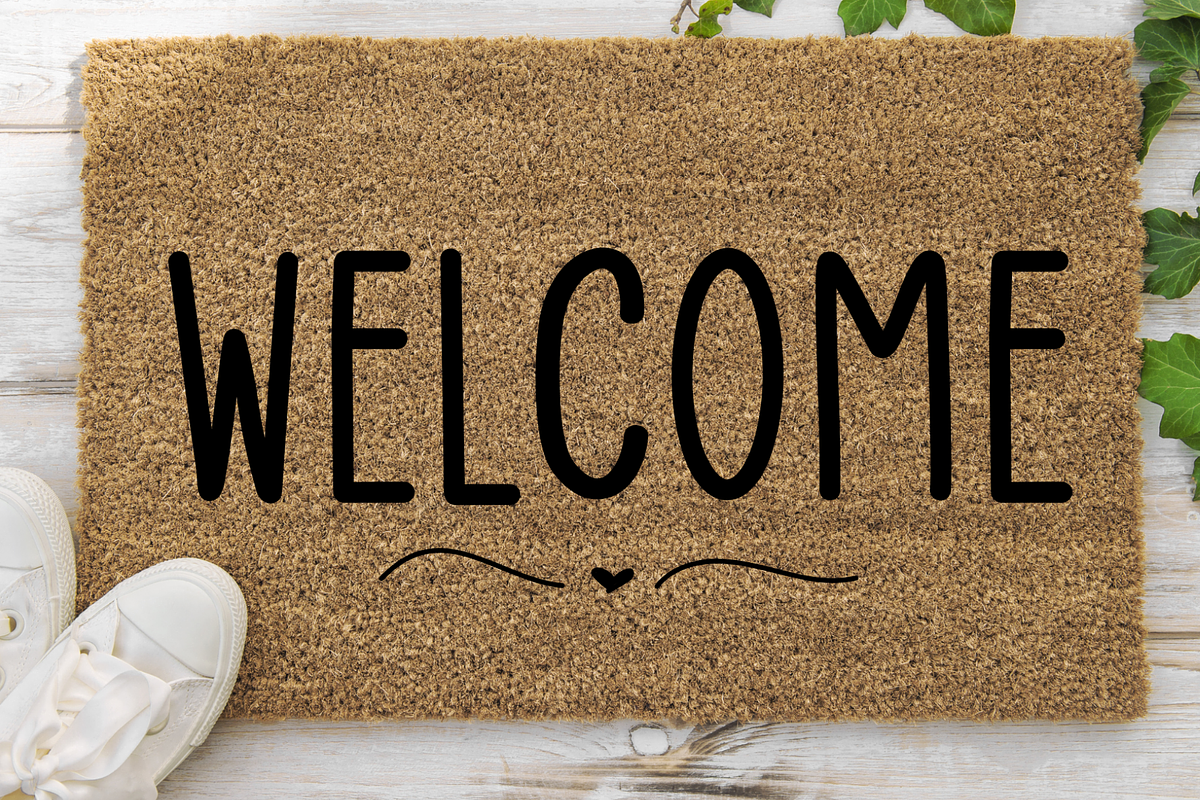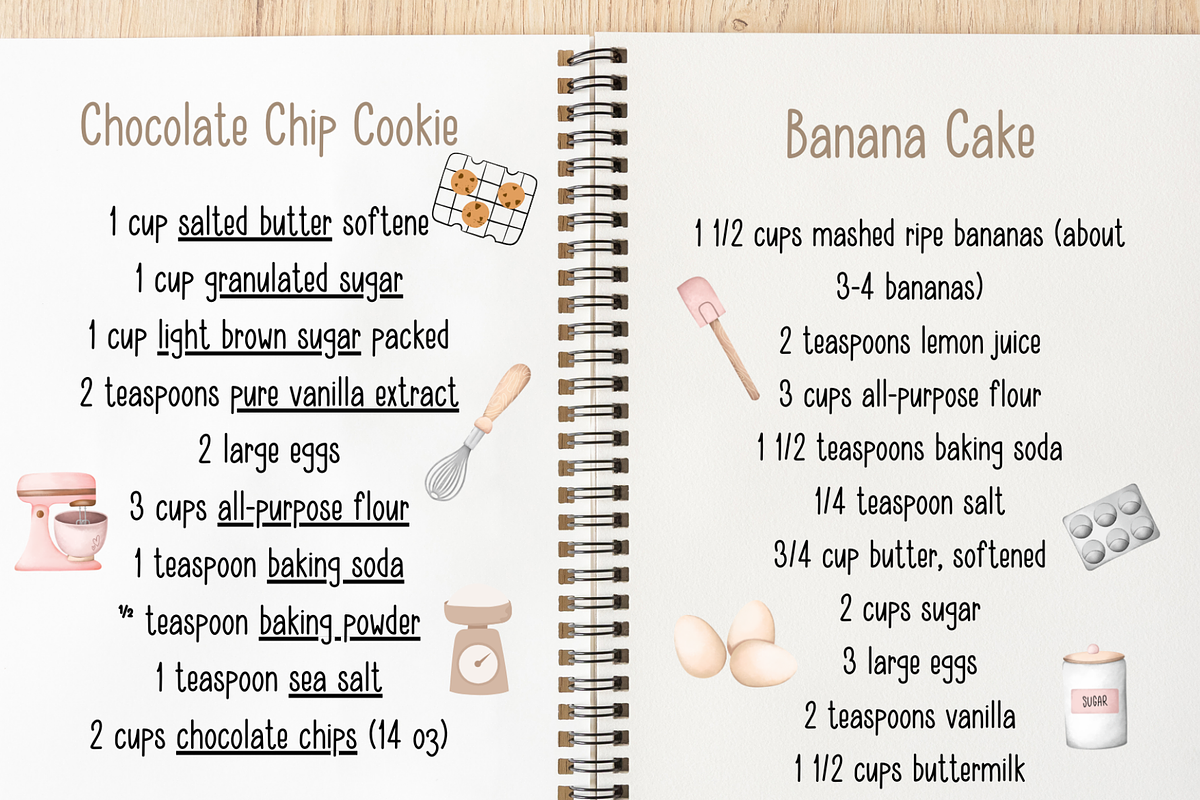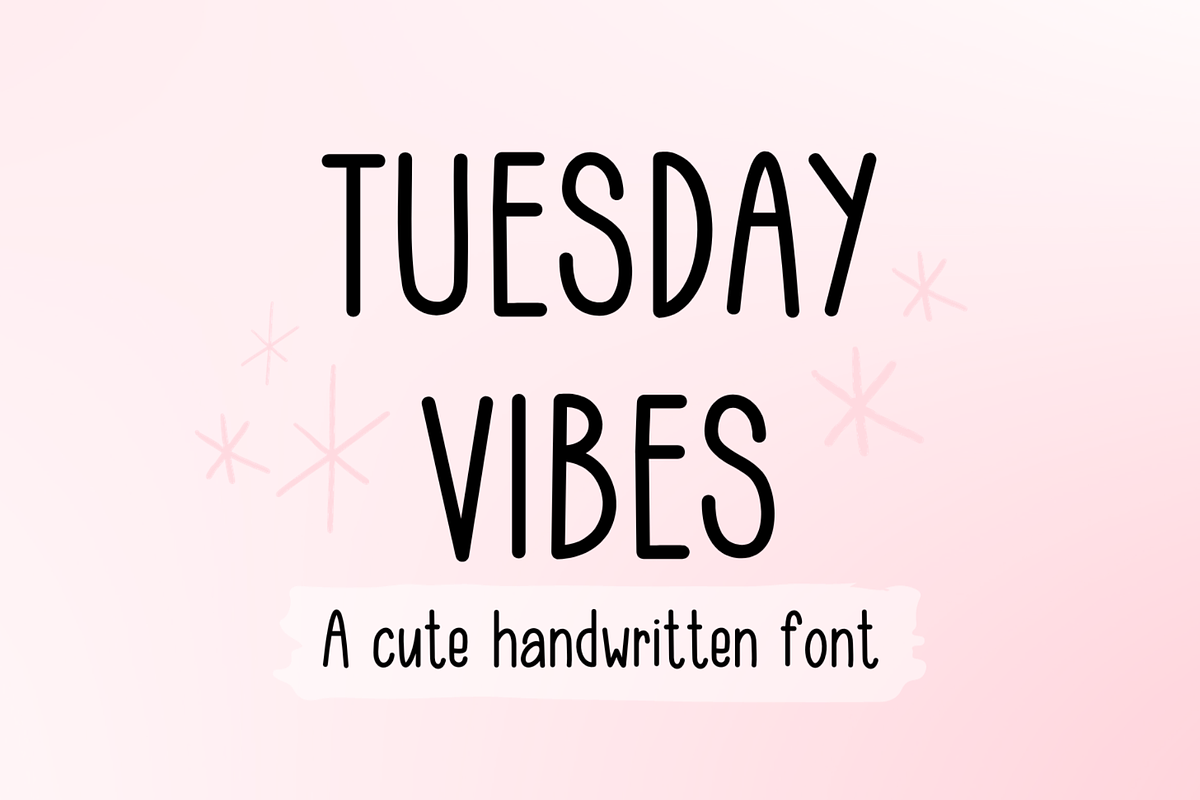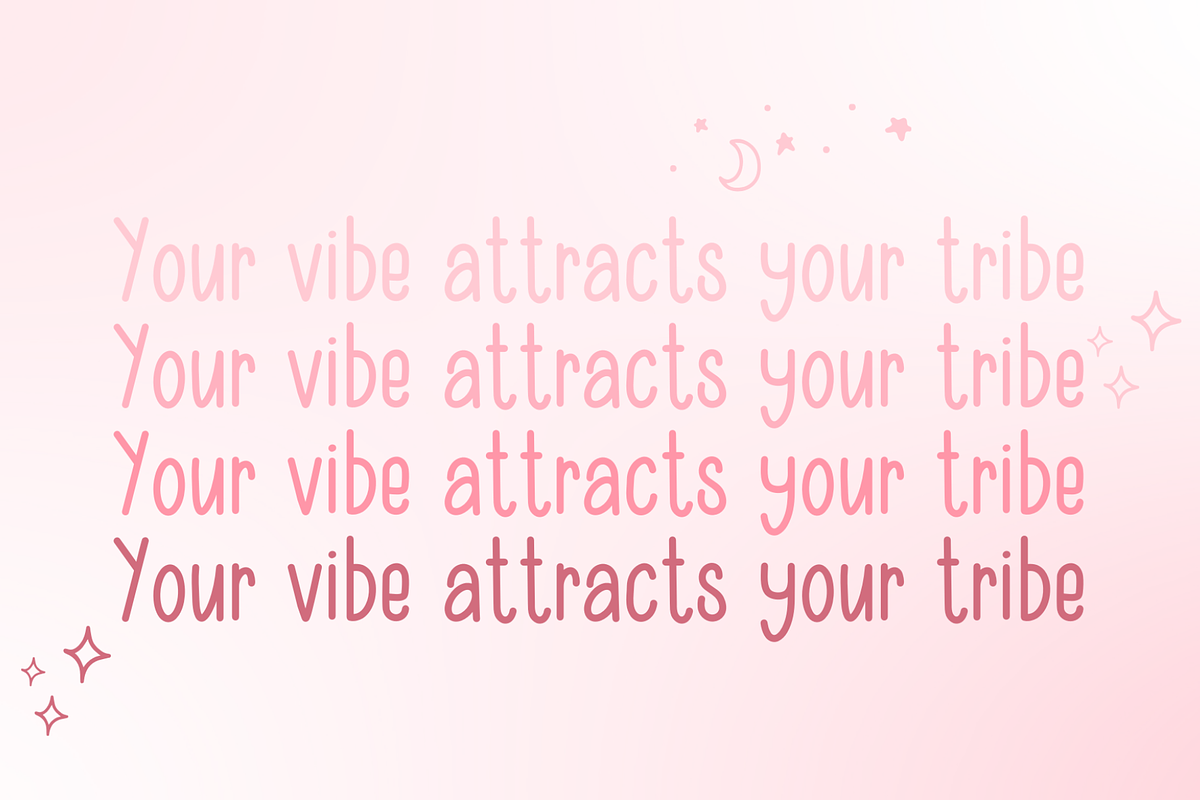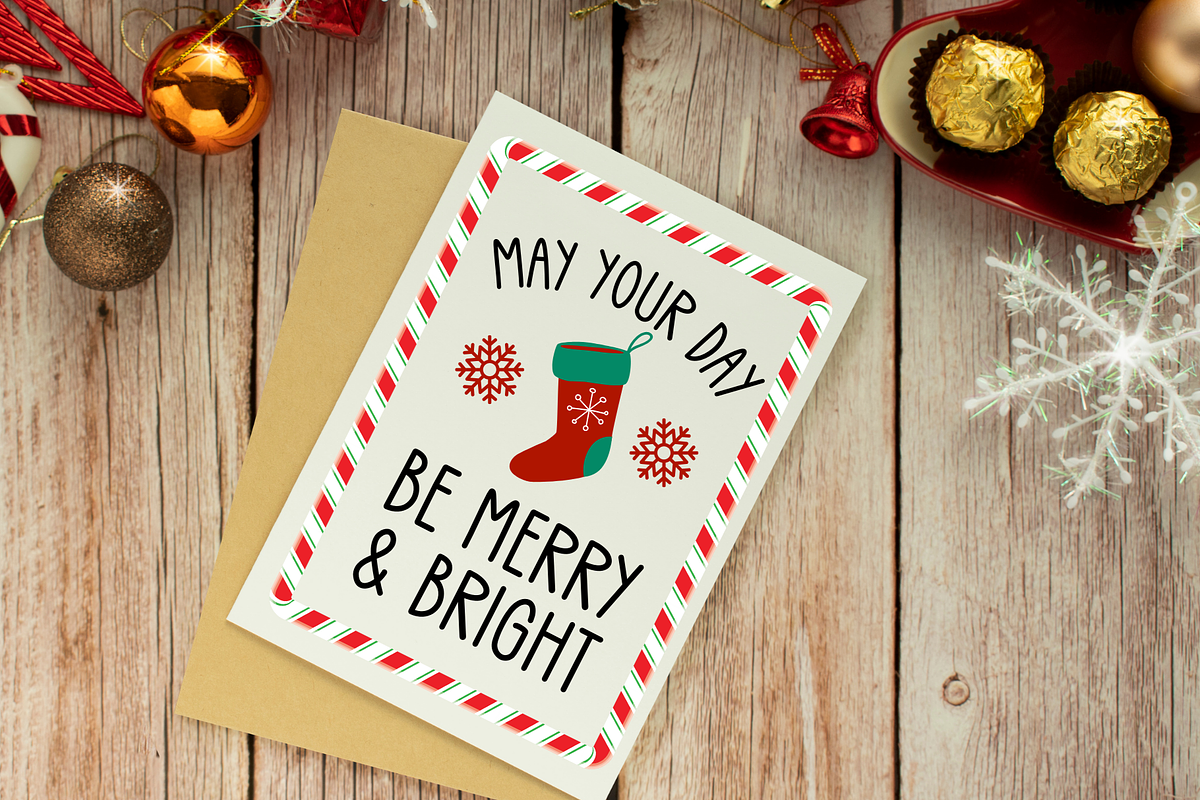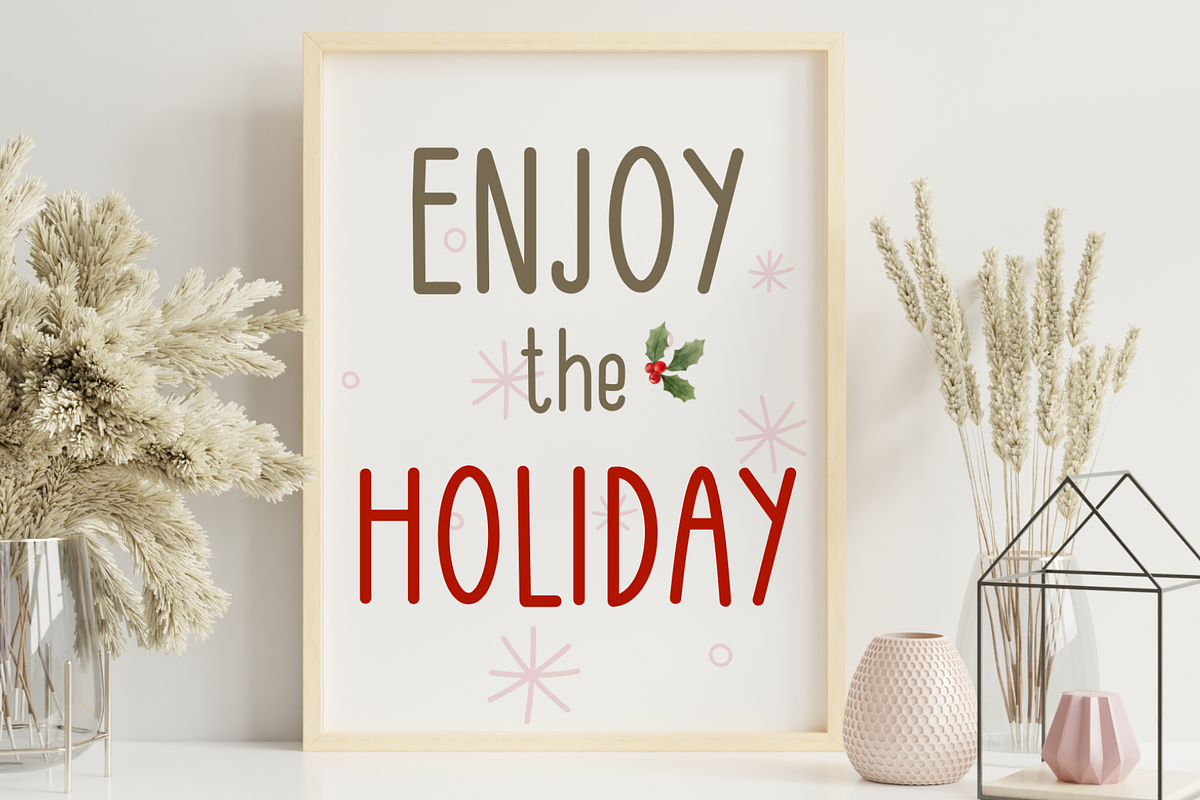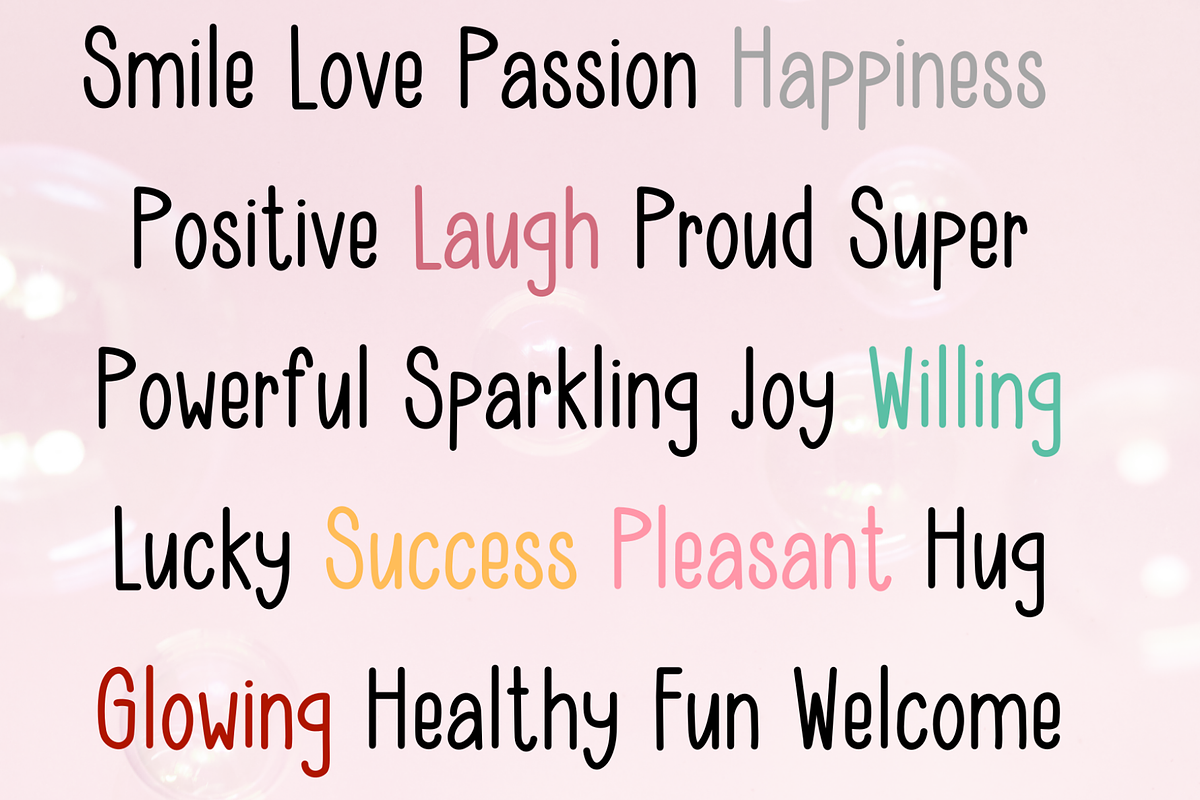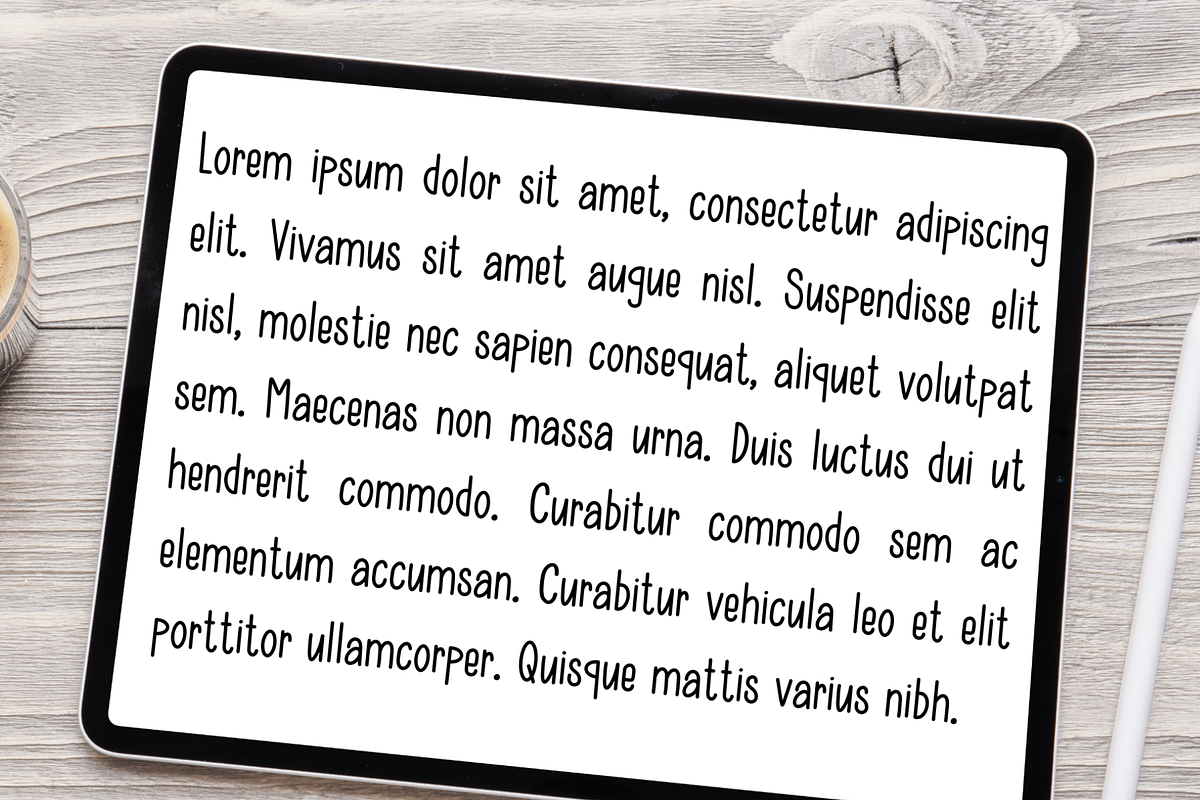
Tuesday Vibes Cute Handwritten Font
Tuesday Vibes is a handwritten font that is cute , playful , neat and clean. It is good for digital prints, Christmas cards, Birthday cards, greeting cards, quotes for facebook and Instagram, Goodnote, planner, journal and any occasion presentations.